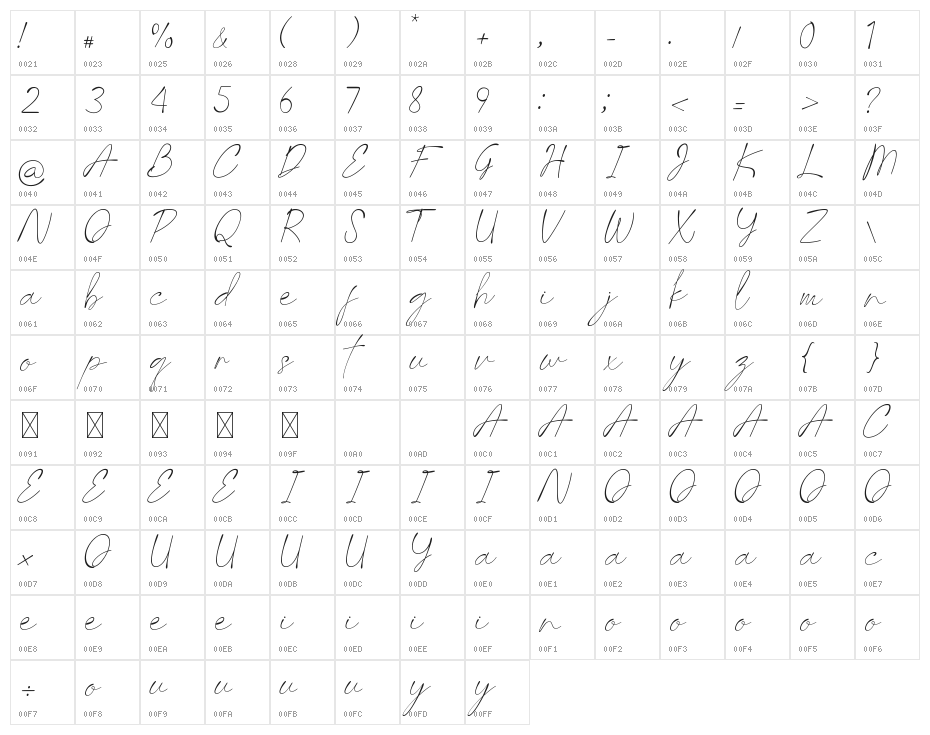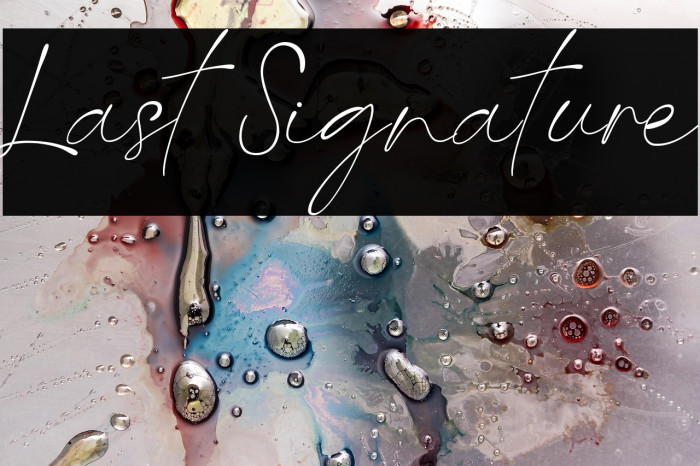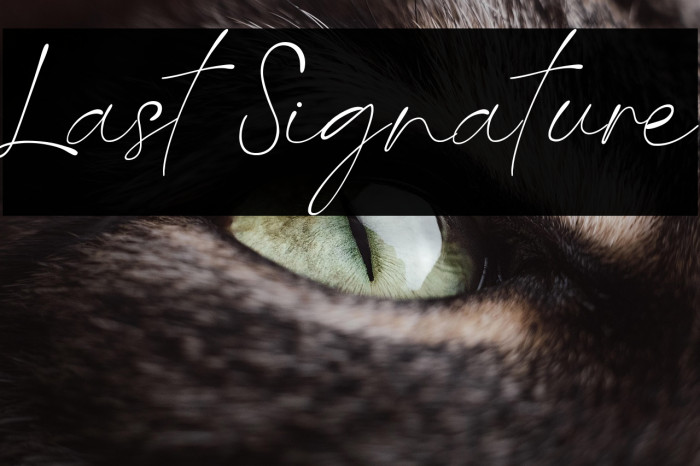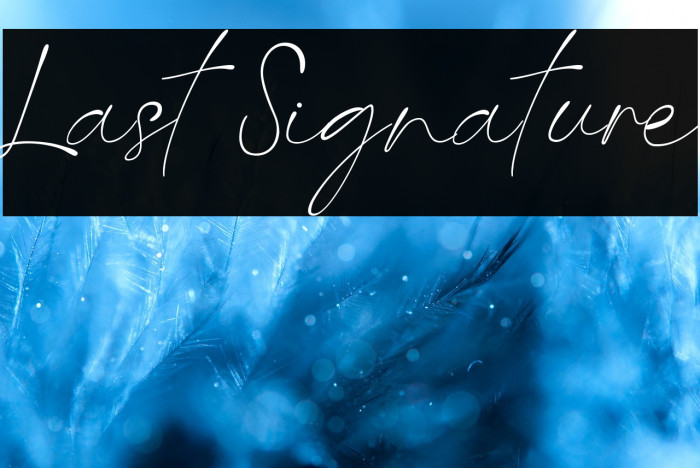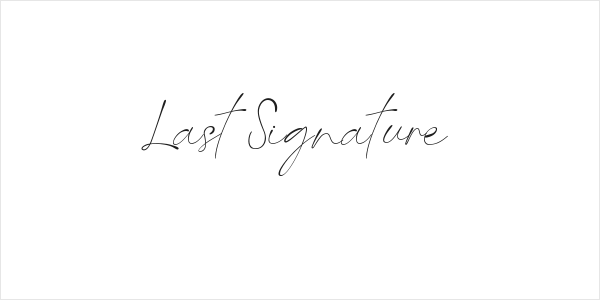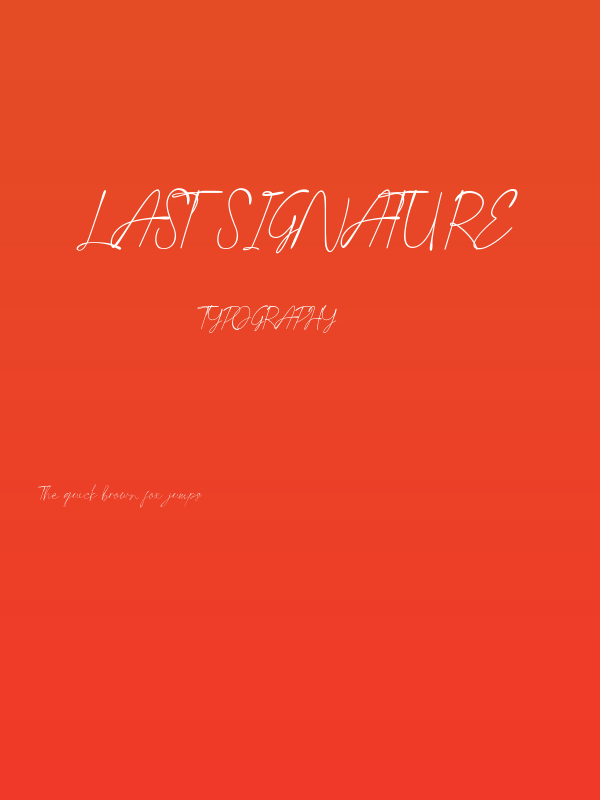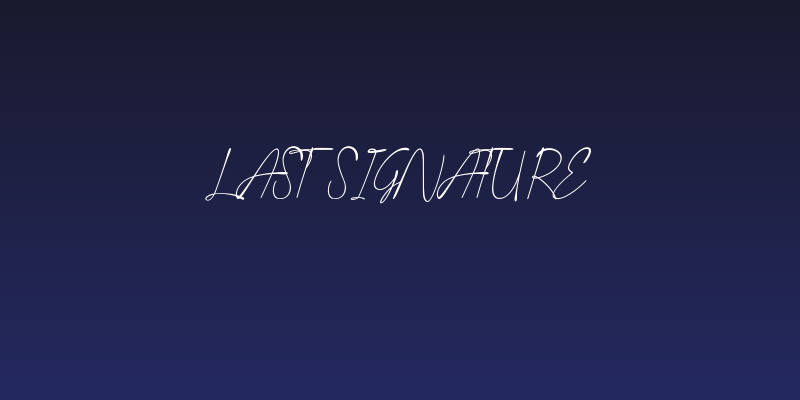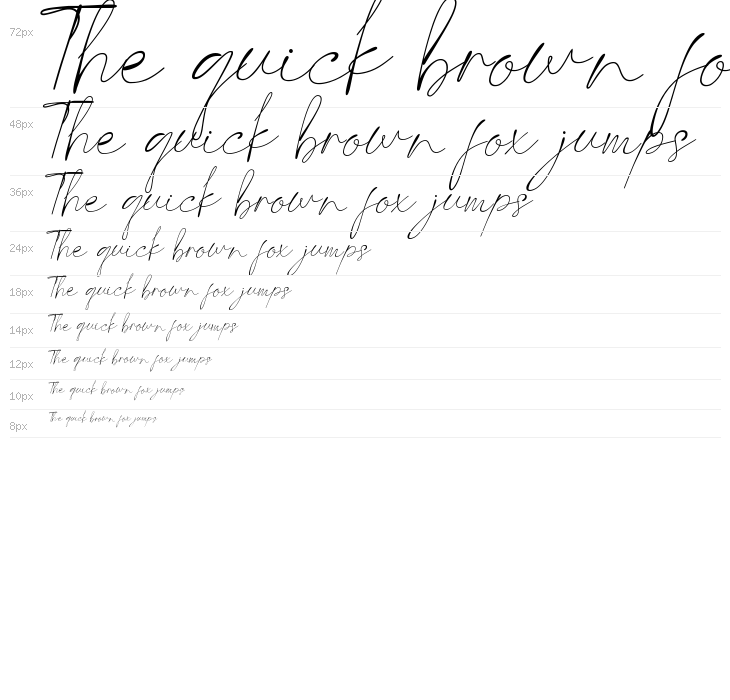
Last Signature Font
Last Signature Description
This elegant script font features fluid, cursive strokes that mimic the natural flow of handwriting. The characters are connected, creating a seamless and continuous appearance. The uppercase letters are slightly more elaborate, with graceful loops and curves, while the lowercase letters maintain a consistent and smooth style. The numerals and special characters are designed to match the overall aesthetic, ensuring a cohesive look. This font exudes sophistication and charm, making it ideal for projects that require a personal touch.
| Overall Style | Elegant, Handwritten |
| Use Case | Logos, Invitations, Personal Branding |
| Proposed Projects | Ideal for wedding invitations, personal branding, greeting cards, and elegant logos. |